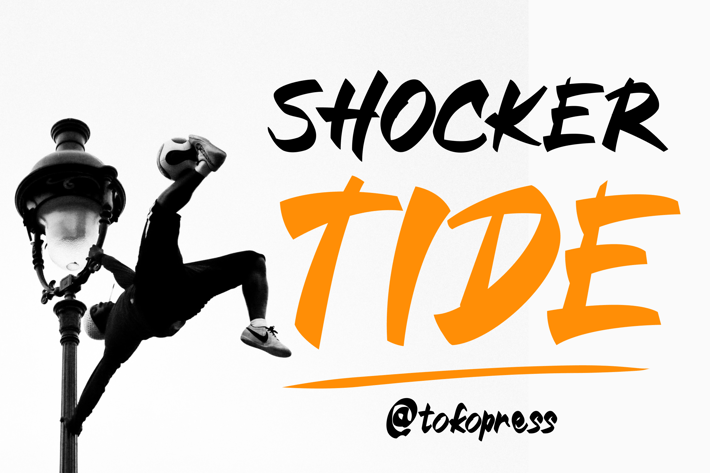
Shocker Tide - Graffiti Font
High-impact graffiti brush font for street culture branding and posters with energetic strokes and bold flow.
Shocker Tide delivers a visceral punch through dynamic brush lettering, inspired by the raw expression of urban sports and underground art. Its aggressive tilt, messy flow, and sharp dry-brush terminals make it feel alive—perfect for designs that demand rebellion, action, and attention. It speaks loud with zero filters.
From skatepark flyers to music festival banners, YouTube thumbnails, and streetwear labels, Shocker Tide fits any project looking to shout, not whisper. It captures the emotional intensity of the streets—skating, scootering, biking, rapping—and translates that grit into typographic energy. This is the font for movements, not moments.
Key Features :
Bold Brush Character
- Fast-flowing strokes with uneven pressure
- Textured dry-brush details for raw authenticity
Designed for Impact
- Built for skateboard culture, streetwear, extreme sports, and youth activism
- Works great on social media graphics, urban posters, or event promotions
* Functional Meets Emotional
- Instant visual aggression with a handmade feel
- Ideal for designers who want bold messaging and unforgettable visual presence
Inject urban adrenaline into your designs with Shocker Tide. This font isn’t just made to be seen—it’s made to be felt. Perfect for rebellious brands, fast-moving culture, and creators who defy the norm.